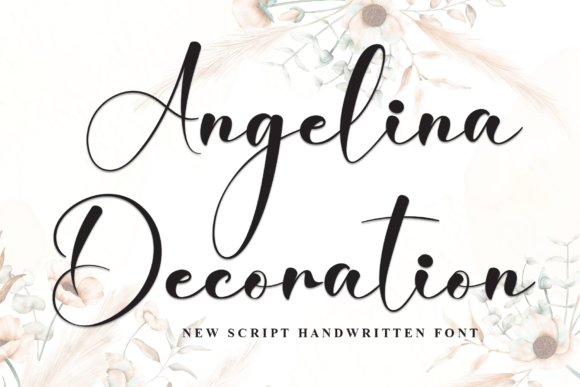
Angelina Decoration Font: Elevate Your Designs with Elegance
Are you looking for a font that can add a touch of sophistication and elegance to your designs? Look no further than the Angelina Decoration font. This beautiful, handwritten font is perfect for creatives who want to make their ideas come alive. In this article, we’ll take a closer look at the Angelina Decoration font, its features, and how you can use it to take your designs to the next level.
What Makes Angelina Decoration Font Special?
Angelina Decoration is a delicate, elegant, and flowing handwritten font that has gained popularity among designers and creatives. Its beautiful and well-balanced characters make it an excellent choice for a wide range of designs, from wedding invitations and branding materials to social media graphics and website headers.
One of the standout features of Angelina Decoration is its versatility. This font can be used for both personal and commercial projects, making it an excellent addition to your design toolkit. Whether you’re creating a romantic wedding invitation or a bold brand logo, Angelina Decoration is sure to impress.
Benefits of Using Angelina Decoration Font
- Elegant and Sophisticated: Angelina Decoration adds a touch of elegance and sophistication to your designs, making them perfect for high-end brands and luxury products.
- Versatile: This font can be used for a wide range of designs, from wedding invitations to branding materials, social media graphics, and website headers.
- Easy to Read: Angelina Decoration is a highly legible font, making it perfect for body text and captions.
- Unique and Creative: This font has a unique and creative flair that will set your designs apart from the crowd.
Design Tips for Using Angelina Decoration Font
Now that you know more about the Angelina Decoration font, here are some design tips to help you get the most out of it:
- Pair it with Bold Fonts: Pair Angelina Decoration with bold fonts to create a striking contrast and add visual interest to your designs.
- Use it for Headings and Titles: Angelina Decoration is perfect for headings and titles, where its elegant and flowing script can shine.
- Add a Personal Touch: Use Angelina Decoration to add a personal touch to your designs, such as in wedding invitations, greeting cards, and social media graphics.
- Experiment with Colors: Angelina Decoration looks great in a variety of colors, from soft pastels to rich jewel tones. Experiment with different colors to find the perfect fit for your design.
Pairing Angelina Decoration with Other Fonts
Pairing Angelina Decoration with other fonts can create a beautiful and harmonious design. Here are some font pairing suggestions:
- Open Sans: Pair Angelina Decoration with Open Sans for a clean and modern look.
- Lato: Combine Angelina Decoration with Lato for a elegant and sophisticated design.
- Merriweather: Pair Angelina Decoration with Merriweather for a classic and luxurious look.
In conclusion, Angelina Decoration is a beautiful and elegant handwritten font that can elevate your designs to new heights. Its versatility, readability, and unique flair make it an excellent choice for creatives who want to add a touch of sophistication to their work. By following the design tips and font pairing suggestions outlined in this article, you’ll be able to get the most out of Angelina Decoration and create stunning designs that will leave a lasting impression.